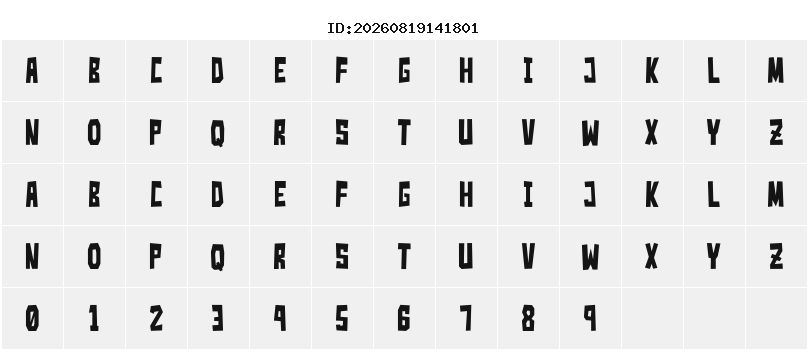
About Simple Slum__G.ttf
Simple Slum__G.ttf is a modern, elegant sans-serif font designed for ultimate readability and visual harmony. Perfect for branding, headlines, web design, and print materials.